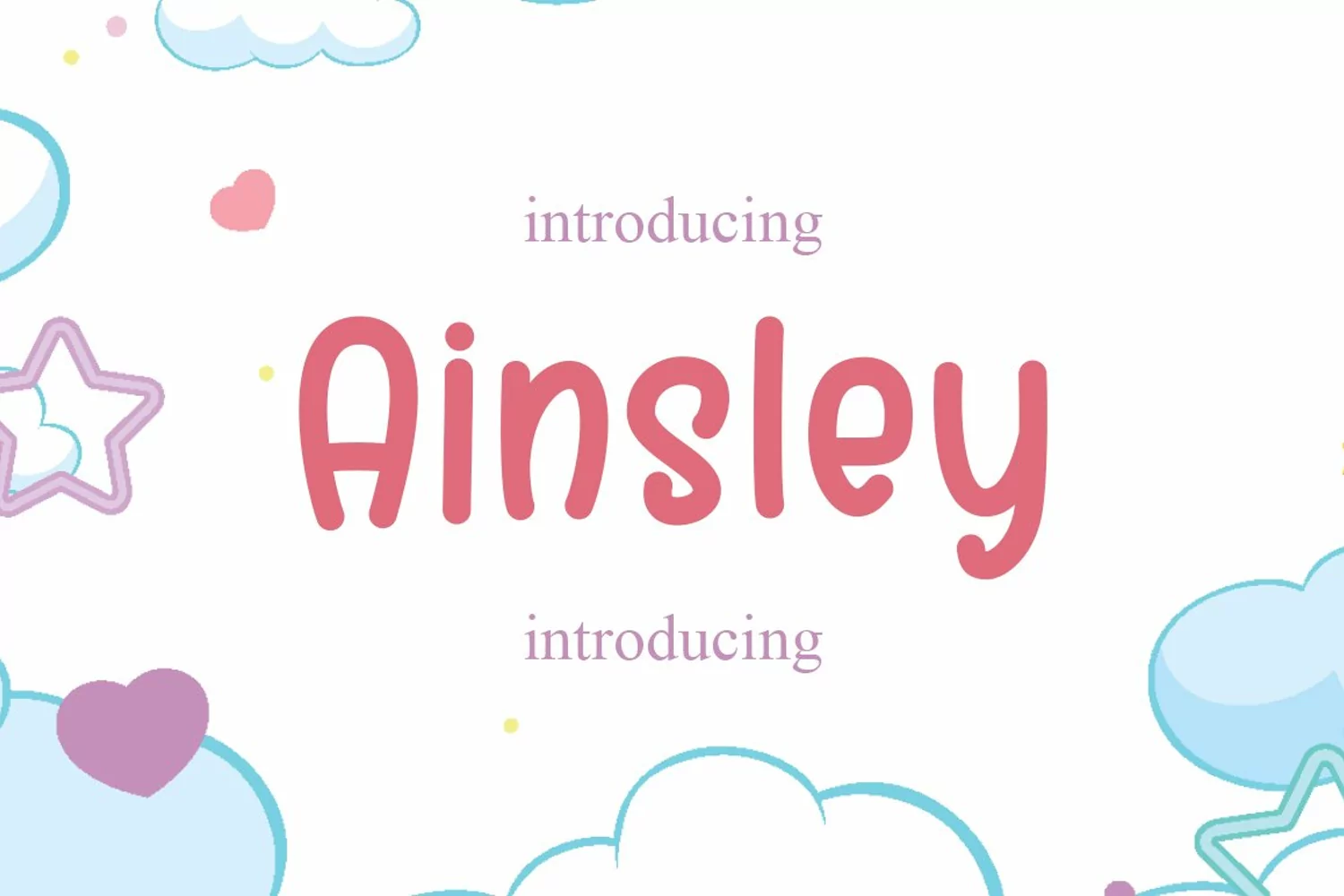
Ainsley
Ainsley is a cute and simple-lettered display font perfect for all chalkboard quotes and teaching material! Its authentic look and realistic feel to your designs.
Graphix Line Studio